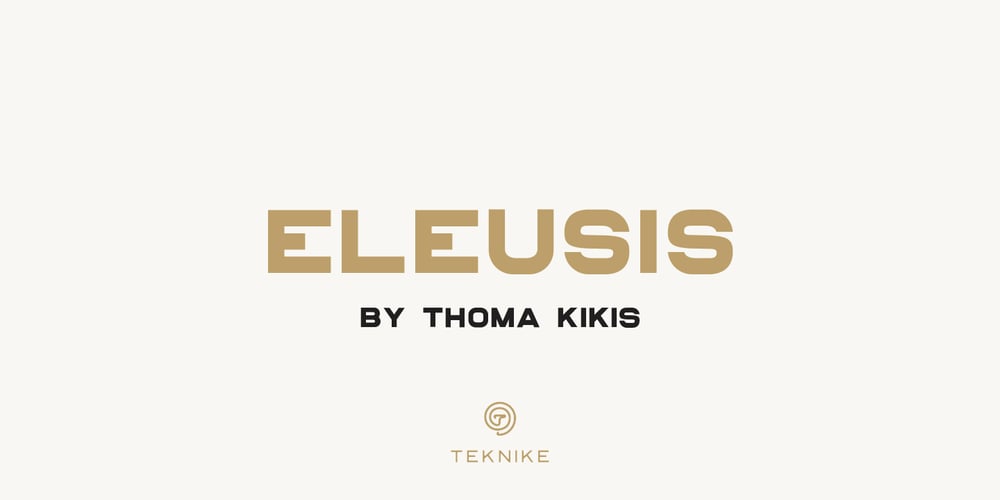
Eleusis Font Family was designed by Thoma Kikis and published by TEKNIKE. Eleusis contains 9 styles and family package options. Eleusis is a sans serif monospace display font. The typeface has a distinct style inspired by a combination of Naval, Industrial, Mid-Century Modern and ancient sacred geometry, designed to be bold and easy to read. The Eleusis name is derived from the legendary town (Ancient Greek: Ἐλευσίς), home of the Eleusinian Mysteries and birthplace of the great tragedian Aeschylus for its past and present. Contemporary Eleusis is one of the main industrial centers of Greece with refineries and shipbuilding. Eleusis is great for display work, quotes, invitations, posters, titles and headings.